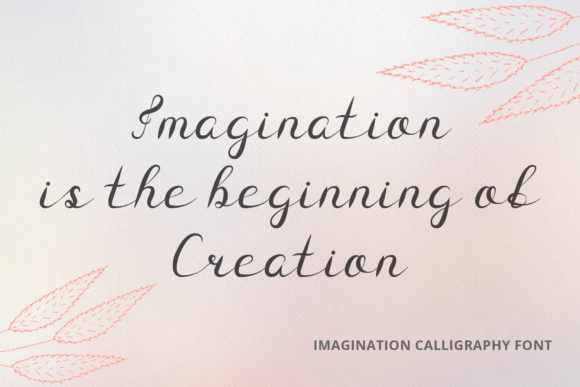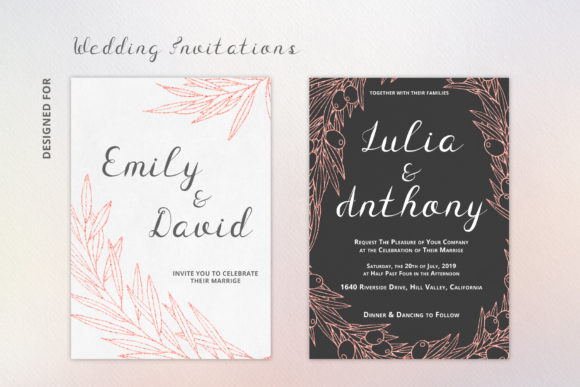
Imagination Font
db-ku.com - Script & Handwritten -- Imagination is a stunning handwritten font with a charming twist. It will add a romantic feel to any design project!